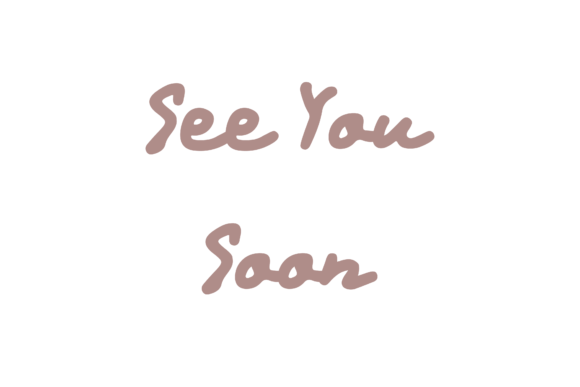
Introduction to Selalu Dia Font Font
Fonts play a crucial role in design, and the Selalu Dia Font font is a typeface that brings both character and versatility to any project. Whether you’re working on a branding project, a website, or a print design, the Selalu Dia Font font offers a unique style that can elevate your work.
Selalu DIa is a sweet and friendly handwritten font.
Key Features of Selalu Dia Font Font
Why Choose Selalu Dia Font Font?
The Selalu Dia Font font is more than just a typeface – it’s a design tool that helps you communicate your message with style and clarity. Its unique character set and versatile design make it suitable for a wide range of applications, from elegant invitations to bold headlines.
With its carefully crafted letterforms and balanced proportions, the Selalu Dia Font font ensures readability and visual appeal across all mediums.
What makes Selalu Dia Font font special?
The Selalu Dia Font font stands out with its unique design, exceptional readability, and versatility across various design applications.